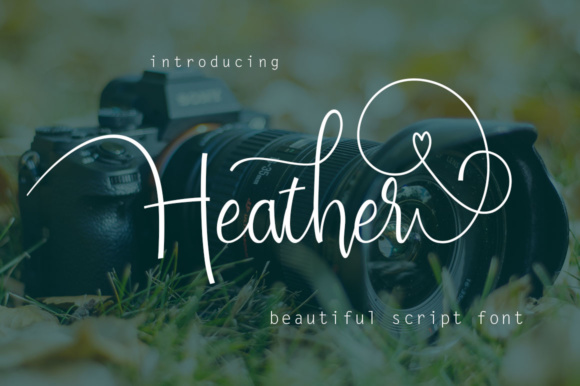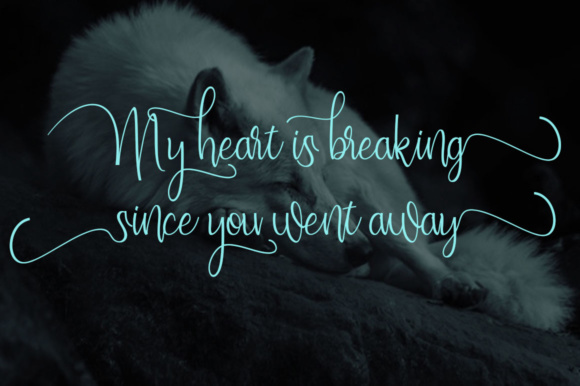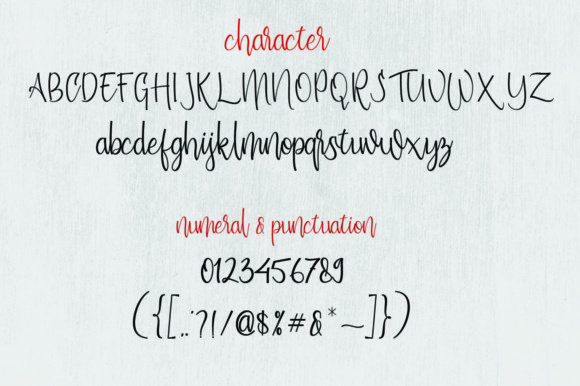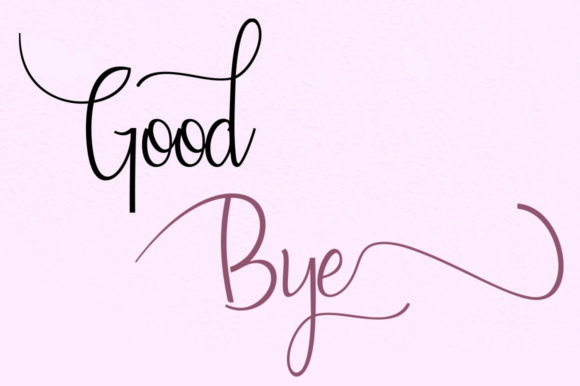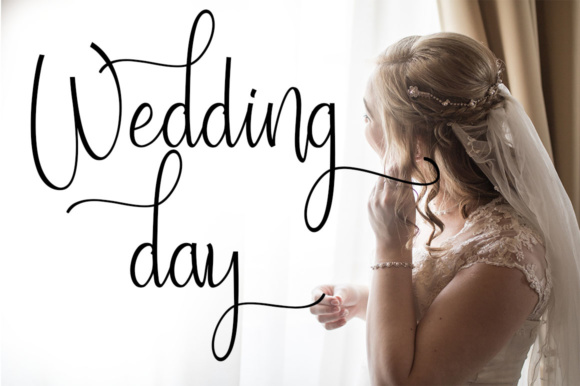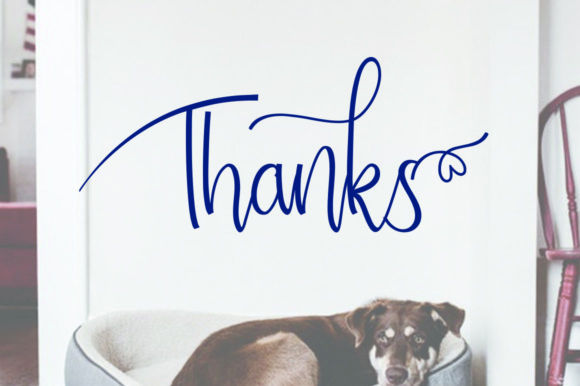
Heather Font
About Heather Font
Heather is a beautiful, modern calligraphy font with a dancing baseline. This ettered script will look gorgeous on all your designs, wedding invites, branding materials, logo’s, business cards, and quotes.